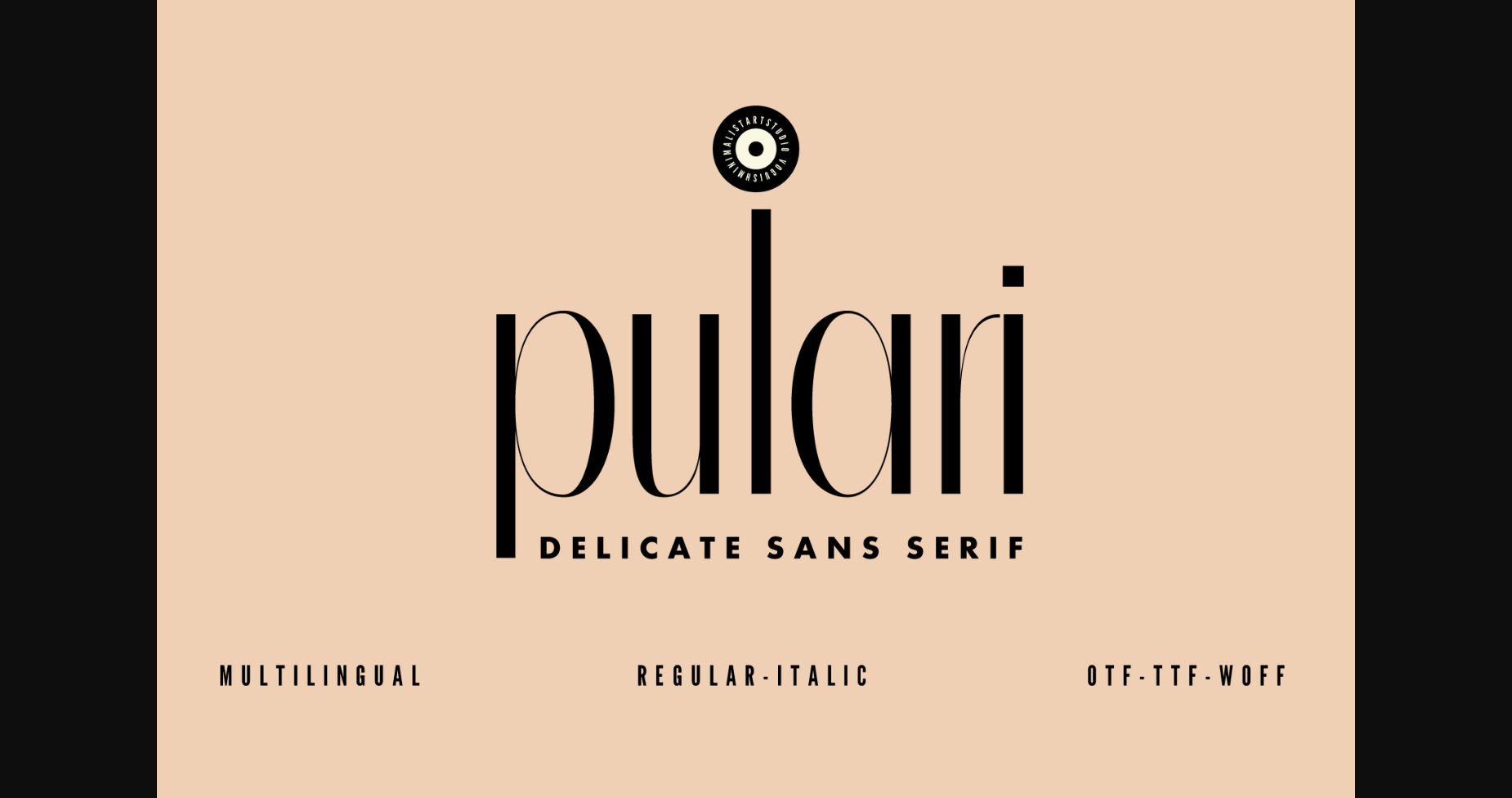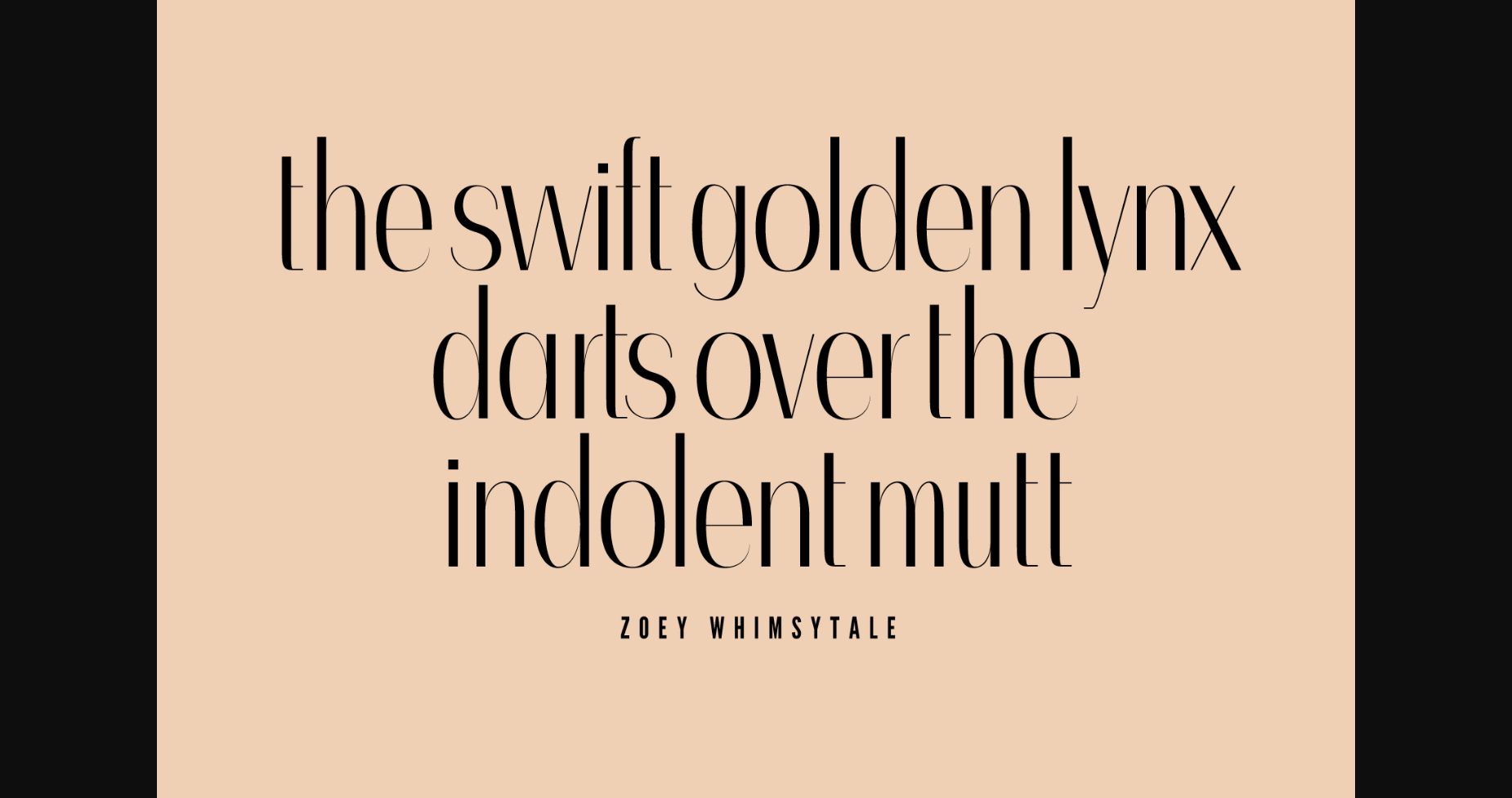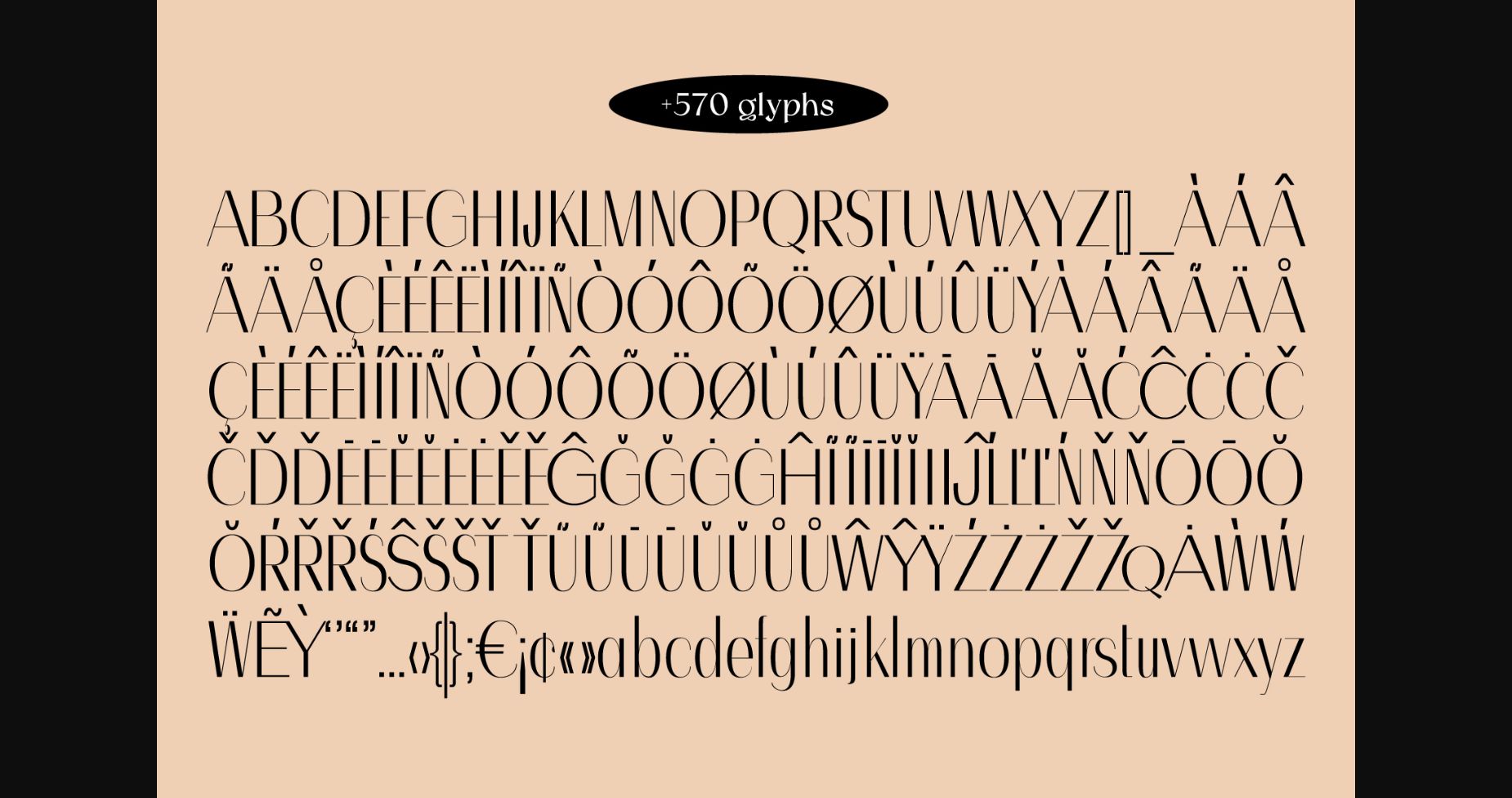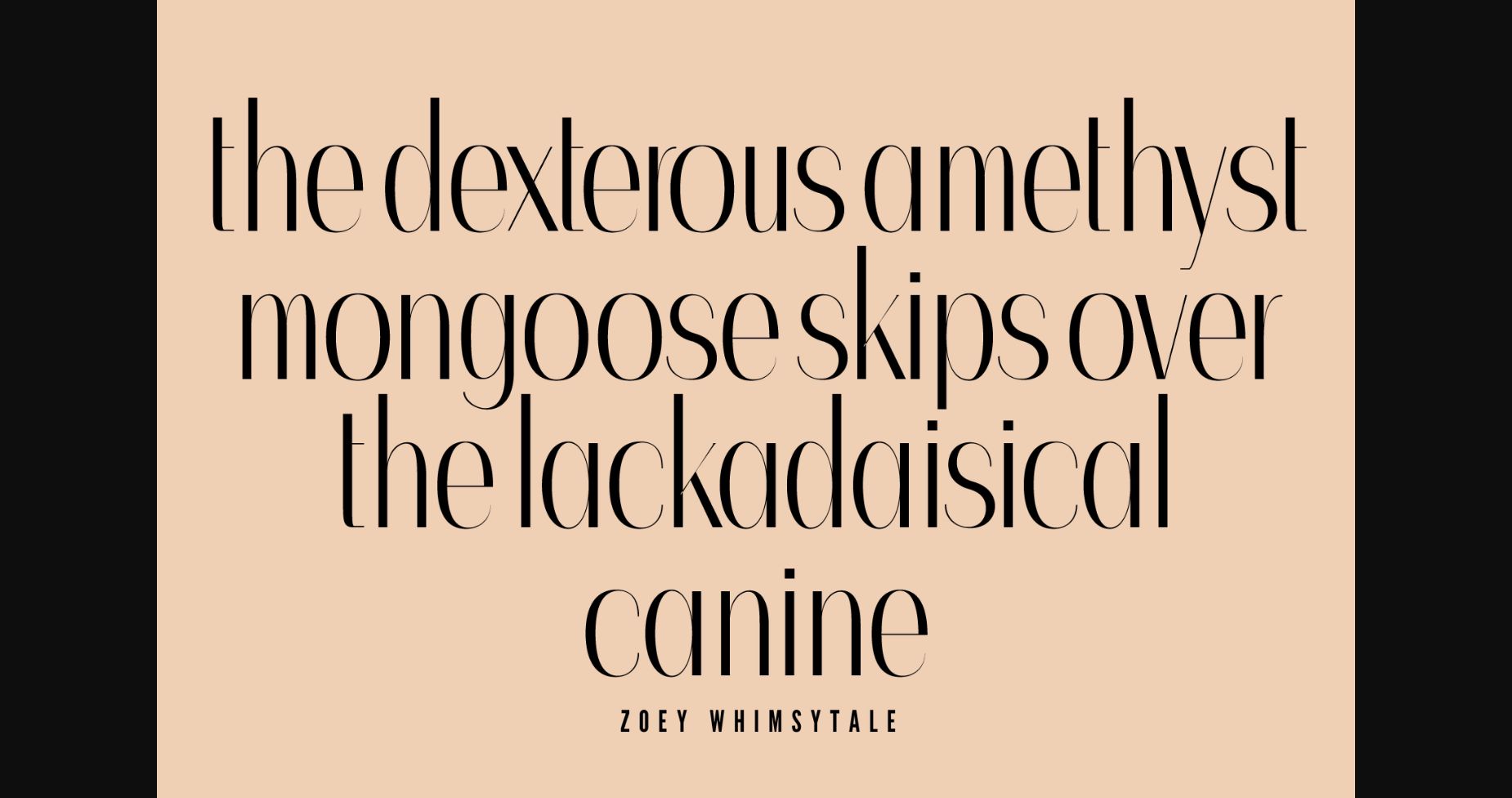
About Pulari Font
Discover “Pulari,” a chic and modern sans-serif typeface that effortlessly blends minimalism with timeless elegance. With clean lines and graceful curves, Pulari captures attention and delivers a powerful typographic statement. Its versatility and thoughtful design ensure optimal readability, making it perfect for any creative project. Embrace the future of typography and elevate your designs with Pulari’s contemporary sophistication. Unlock a world of design possibilities and embrace the allure of simplicity and elegance with Pulari in your font library.